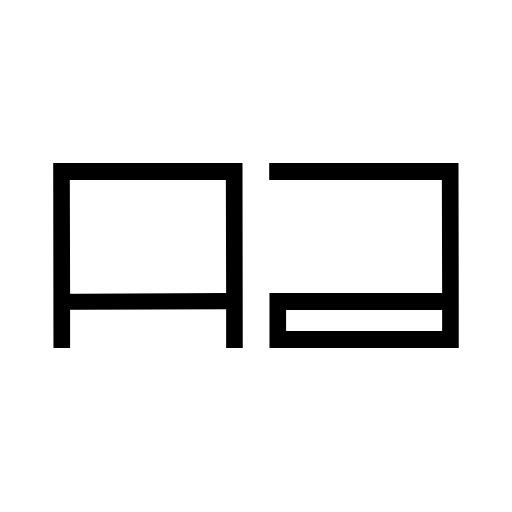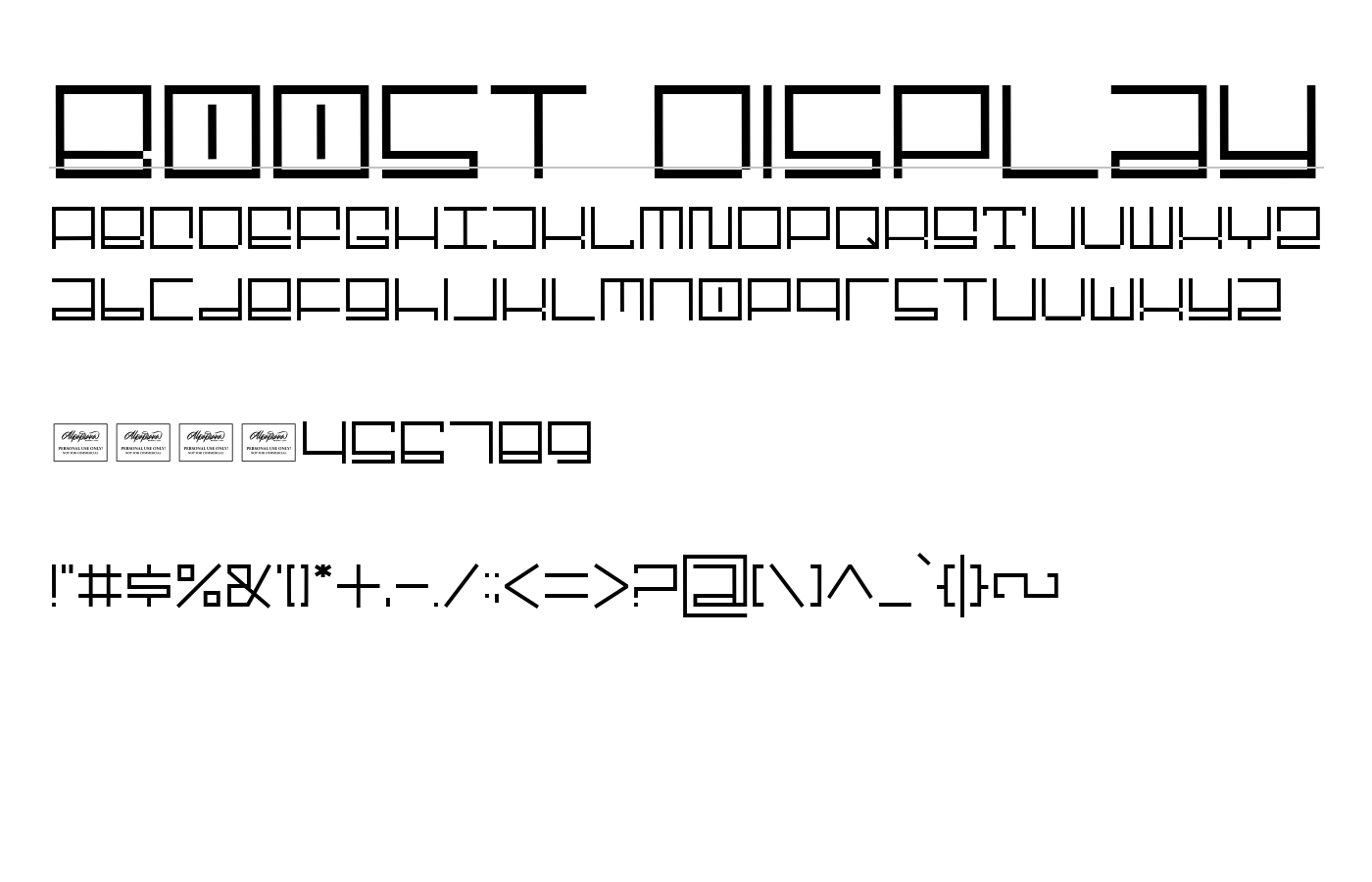
Boost Display is a modern, geometric sans serif font with a technical, almost digital appearance. Its clean, thin strokes and uniform width create a futuristic and minimalist vibe, making it ideal for tech, sci-fi, or innovative branding and headline use where a sleek, cutting-edge look is desired.
Boost Display Font
About Boost Display Font
| Font family | Boost Display Font |